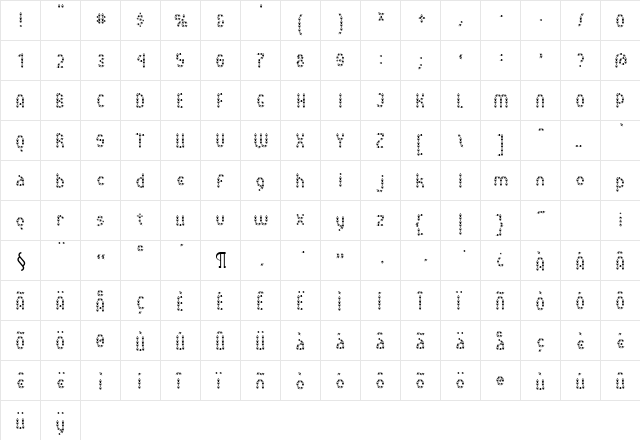
MousyFont Regular
Design Context for MousyFont Typeface
MousyFont is a composed and adaptable typeface that performs quietly and consistently across a wide range of design contexts.